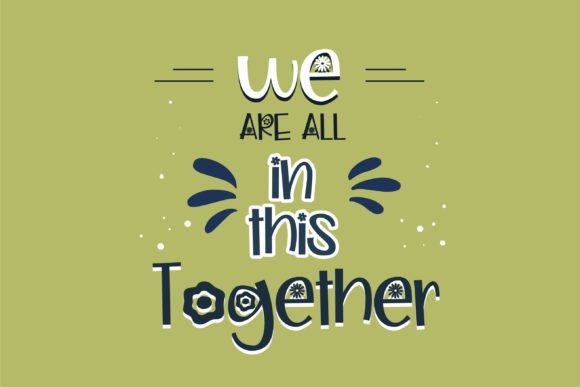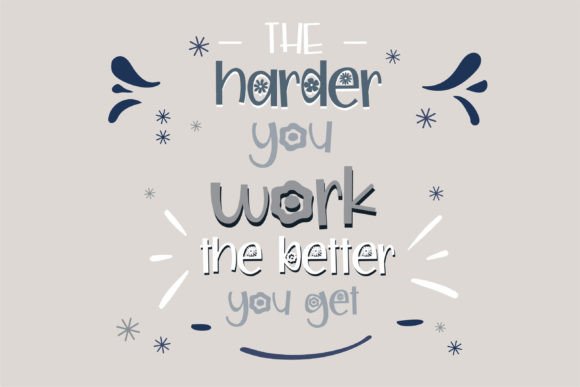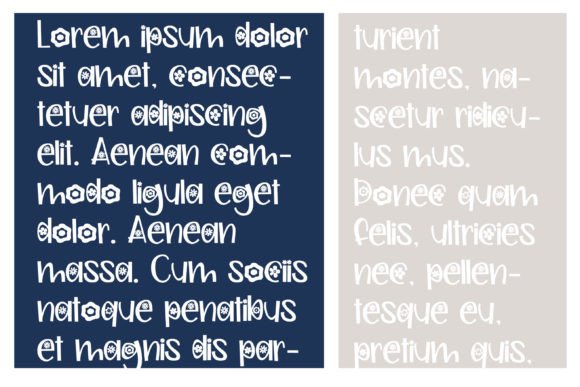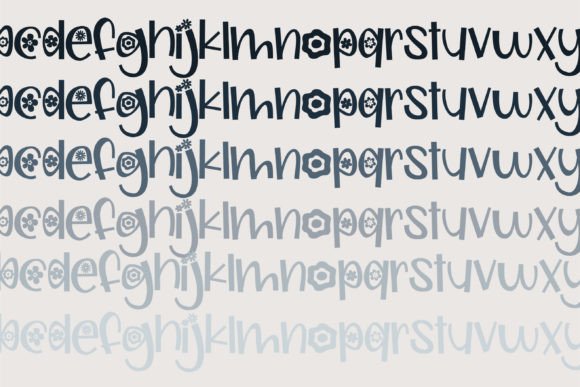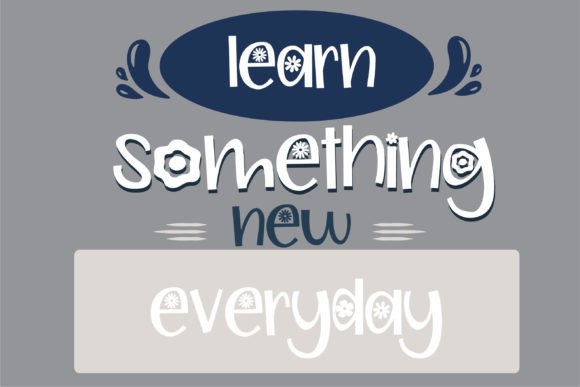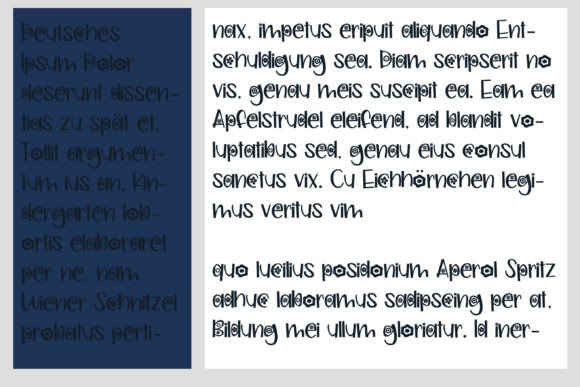
Wildflower Bloom Font
About Wildflower Bloom Font
Wildflower Bloom is a delightful and friendly handwritten font that adds a sweet and natural touch to a variety of design projects. Its unique style, characterized by organic strokes and a playful demeanor, makes it a versatile choice for a wide range of applications, allowing designers to explore creative possibilities without limitations.
The charm of Wildflower Bloom lies in its handcrafted and spontaneous appearance. The uneven strokes and whimsical details give the font a distinct personality, making it perfect for conveying a sense of warmth, friendliness, and approachability. The handwritten quality of the font brings an authentic and human touch to your designs, making them more relatable and engaging.
The versatility of Wildflower Bloom makes it suitable for numerous design contexts. Whether you’re working on greeting cards, invitations, social media graphics, or branding materials, this font can adapt to the tone and style of your project seamlessly. Its friendly and natural vibe makes it particularly well-suited for projects that aim to evoke emotions, create a connection, or convey a sense of care and warmth.
In summary, Wildflower Bloom is more than just a font; it’s a creative tool that infuses your designs with a sense of joy and authenticity. Its sweet and friendly character makes it a standout choice for those who want to create visually appealing, approachable, and heartwarming designs. Let Wildflower Bloom be the blooming touch that elevates your creative projects to new heights.